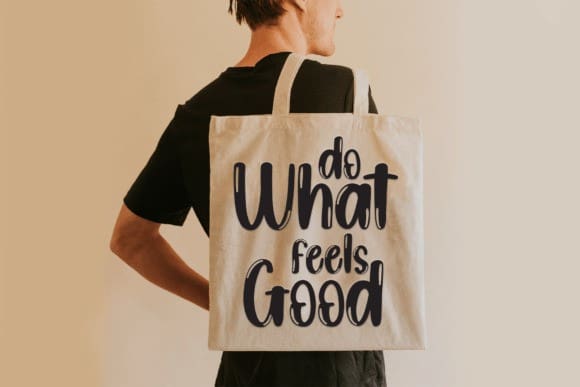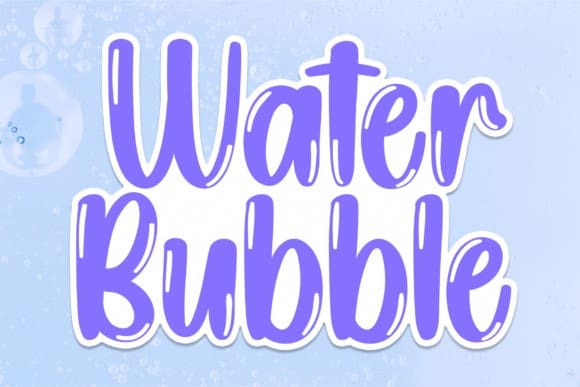
Water Bubble Font
Water Bubble Font is a cool, incredibly cute, and bubbly display font. Add it to each of your party invitations, swimming gatherings, or pretty much any design that requires a touch of youth and joy.